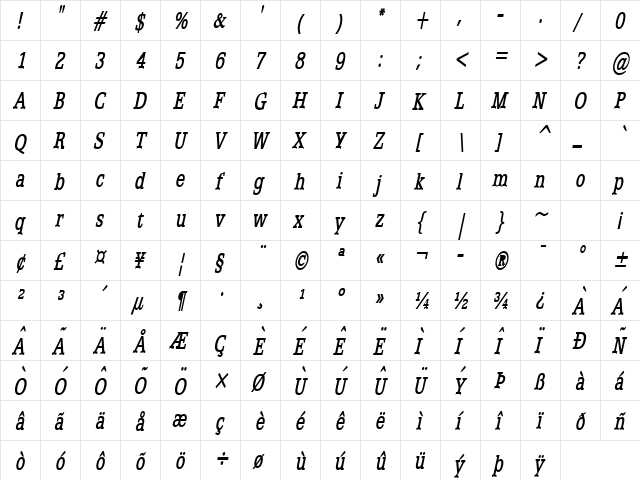
Eggo Thin BoldItalic Font Preview
Design Context for Eggo Thin Typeface
Eggo Thin takes a measured approach to typography — its balanced proportions and neutral character make it a reliable workhorse for both digital and print work. The slanted form adds forward momentum and visual energy. The heavy weight commands attention and anchors typographic hierarchies.
Pro Tip: Try Eggo Thin for annotation and caption copy alongside an upright companion — the contrast in angle creates a dynamic but ordered typographic system.